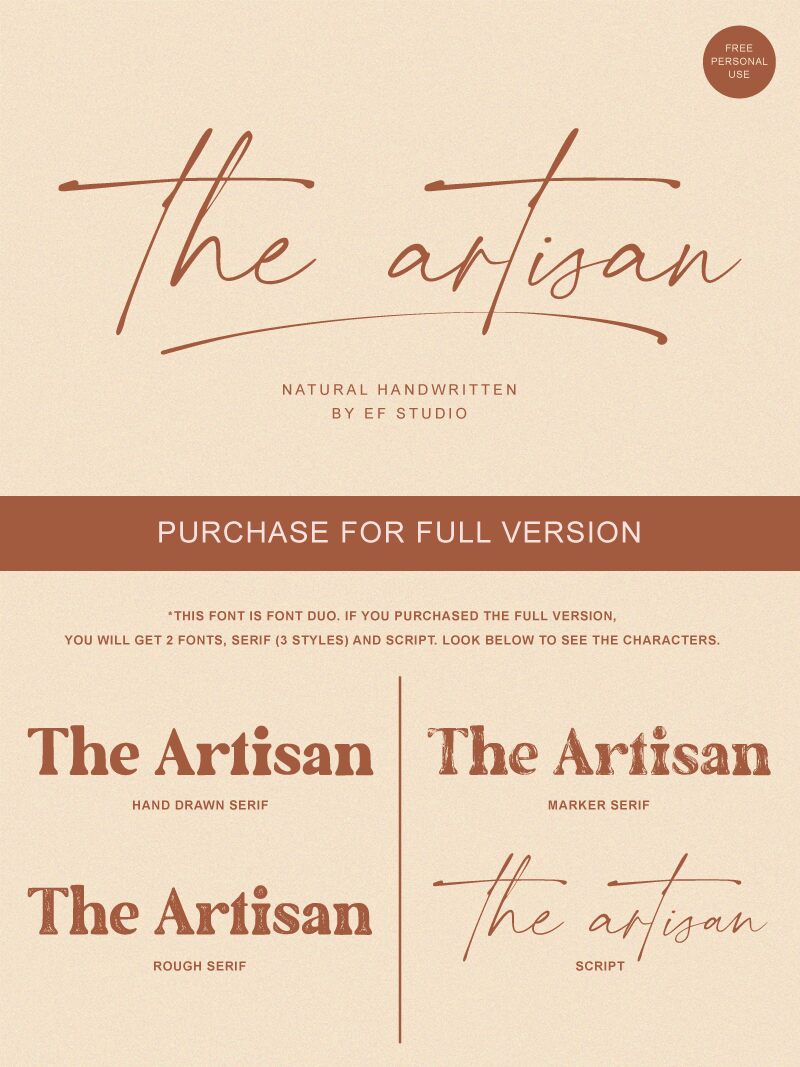
the artisan Ef Studio OpenTypeKostenlose private Nutzung
the artisan
Features : Swashes & Ligatures.
This font is a Font Duo. There are Serif and Script.